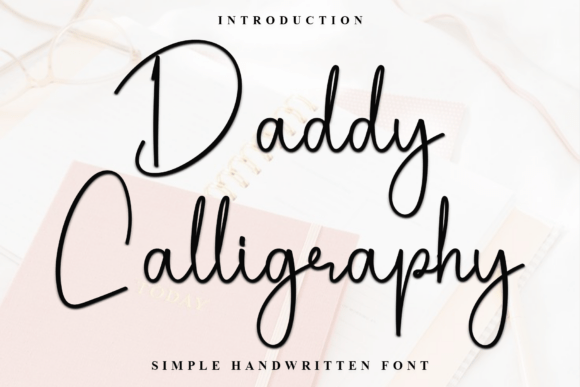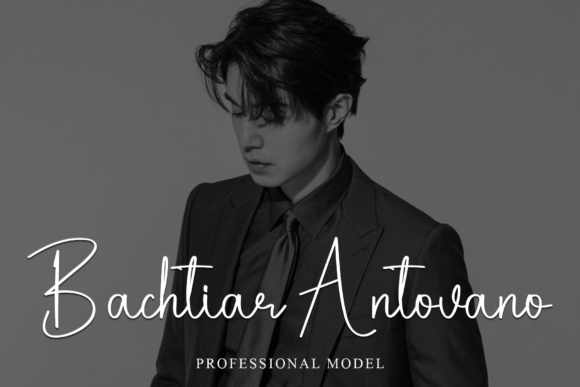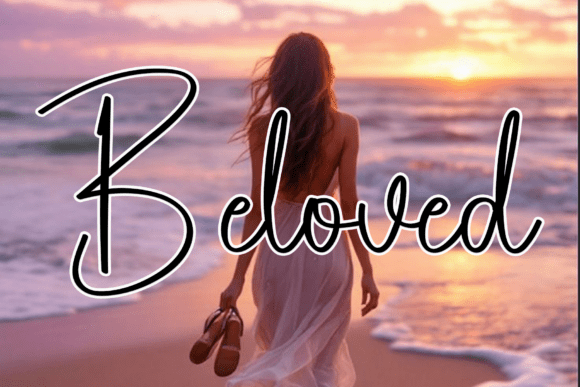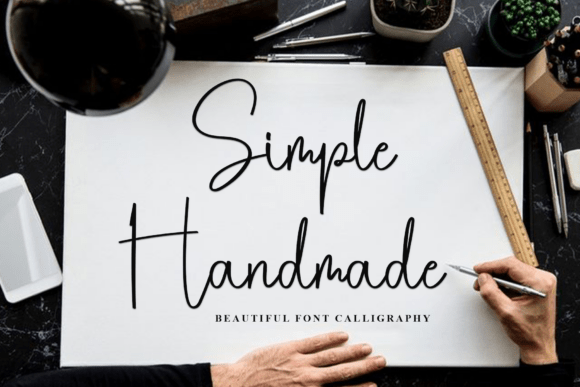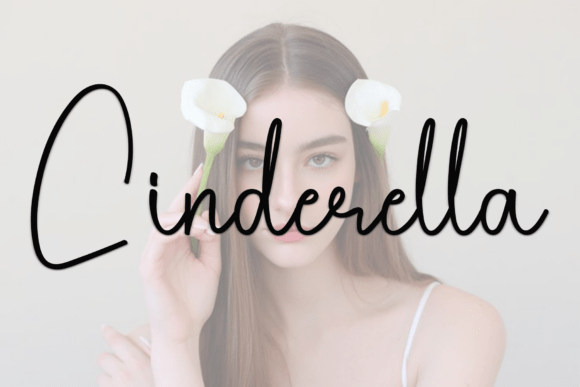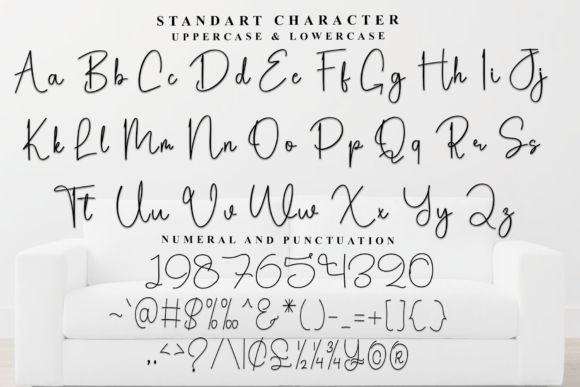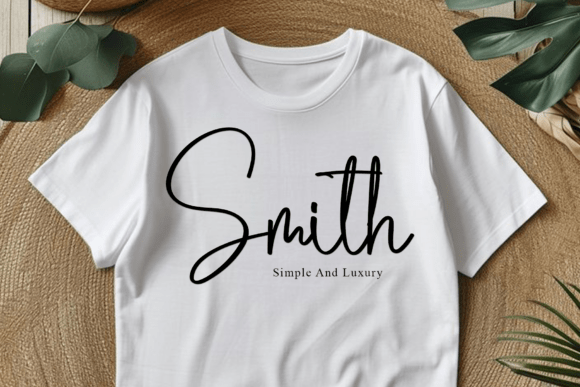
The Art of Beautiful Typography: Unveiling Daddy Calligraphy Font
Have you ever sat at your desk, surrounded by blank paper and a blank mind, desperately searching for inspiration? It’s a familiar feeling for many creatives, and for some, it’s a trigger to break out the calligraphy pen and let the artistic juices flow. As you swirl the pen across the page, creating intricate strokes and beautiful letters, you know you’re onto something special. And that’s exactly what the Daddy Calligraphy Font is all about – capturing the essence of that creative moment and bringing it to life in a digital format.
This stunning font is designed to add a touch of elegance and sophistication to any design project. With its soft, unique strokes and distinctive character, it’s the perfect choice for designers looking to create something truly special. Whether you’re working on a branding project, crafting a wedding invitation, or simply adding a personal touch to a social media post, the Daddy Calligraphy Font is sure to impress.
Daddy Calligraphy Font Key Features
- Size: The font is available in 1 style with 3 font weights (Light, Regular, Bold) and 2 font styles (Regular, Italic).
- Unique Characteristics: The Daddy Calligraphy Font features a modern calligraphic design with elegant, flowing lines and a unique touch of personality.
- Language Support: Supports a wide range of languages, including Latin-based languages, Cyrillic, and Greek.
Daddy Calligraphy Font Review
Overall, I think “Daddy Calligraphy Font” is a beautiful addition to any designer’s toolkit. The script font has a whimsical, hand-drawn feel that’s perfect for adding a touch of personality to your projects. ✨
- Unique, hand-drawn feel that adds a touch of elegance to any design.
- Wide range of characters, including international support, makes it a versatile choice for designers working on global projects.
- Font is highly customizable, allowing designers to tweak the style to fit their needs.
However, there are a few limitations to consider. ✨
- Font can be a bit over-the-top for more serious or corporate designs.
- Some characters may not be as smooth or consistent in certain font sizes.
- Lack of advanced features, such as ligatures or contextual alternates.
Overall, I think “Daddy Calligraphy Font” is a solid choice for designers looking to add a touch of personality to their projects. While it may not be the best fit for every design, its unique feel and high level of customization make it a great option for those looking to stand out.
The Daddy Calligraphy Font is perfect for:
• Wedding invitations and stationery
• Baby shower decorations and gifts
• Personalized greeting cards and letters
• Custom signage and banners